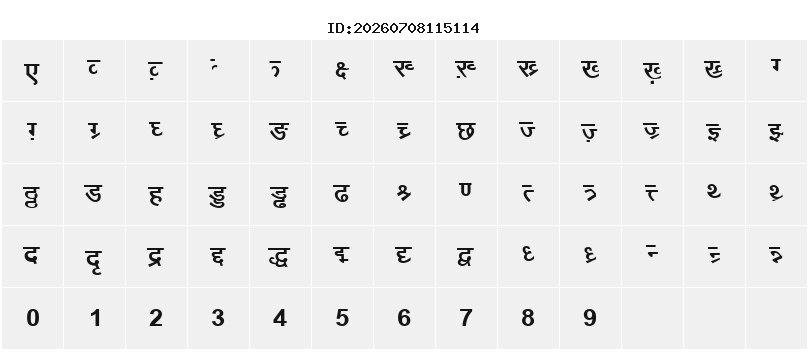
• Font Name: DV_Divyae
• Full Font Name: DV_Divyae Bold
DV_Divyae.ttf is a modern, elegant sans-serif font designed for ultimate readability and visual harmony. Perfect for branding, headlines, web design, and print materials.